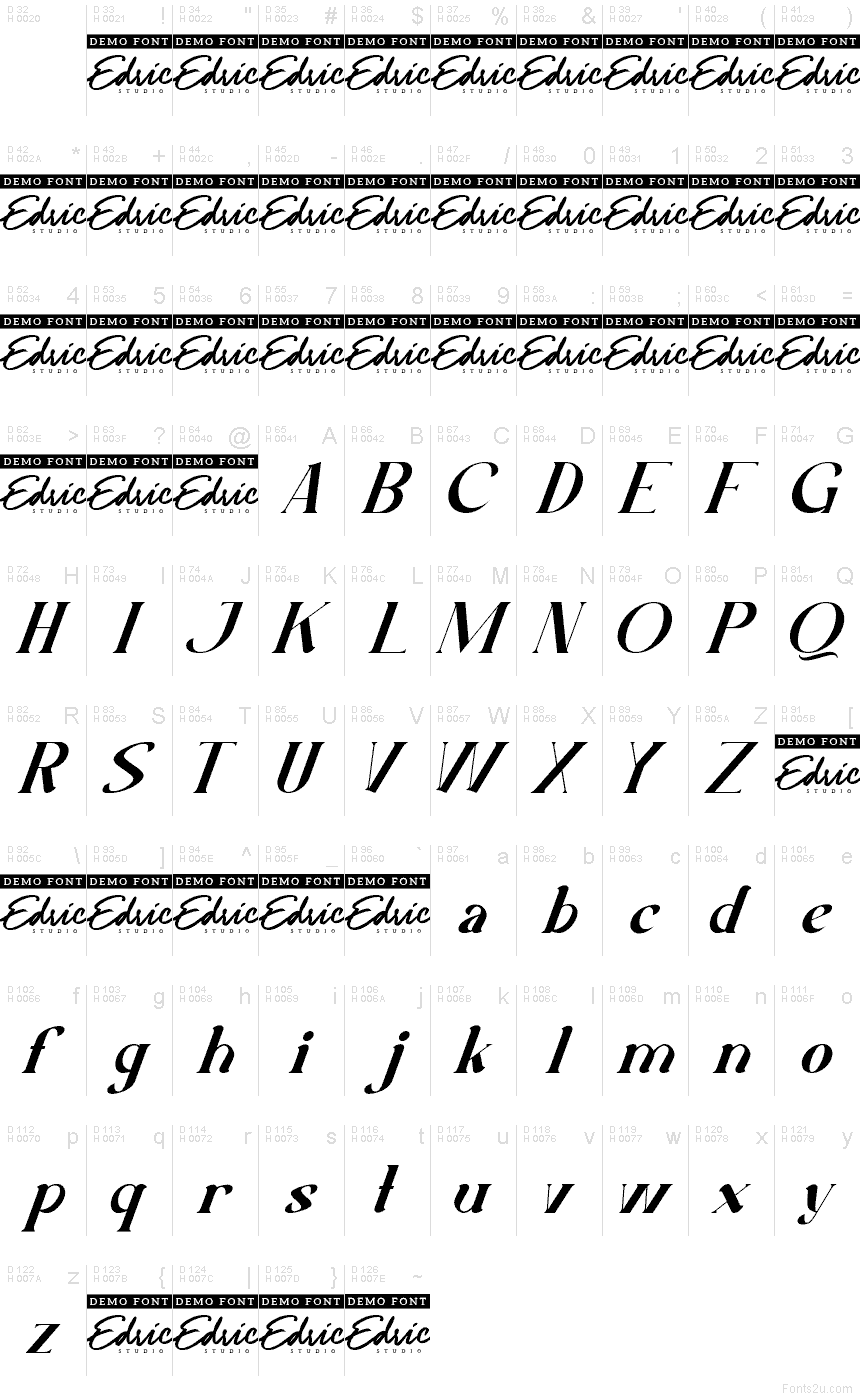
Goldy Ryder Demo Italic
Goldy Ryder Italic font by Edric Studio is a playful yet elegant serif typeface with soft rounded shapes. The handwritten strokes joined at multiple points form pleasant glyphs that are charming for the eye to observe. Besides the basic character set, this student-like font comes with multi-lingual support enabling proper text composition in numerous languages.